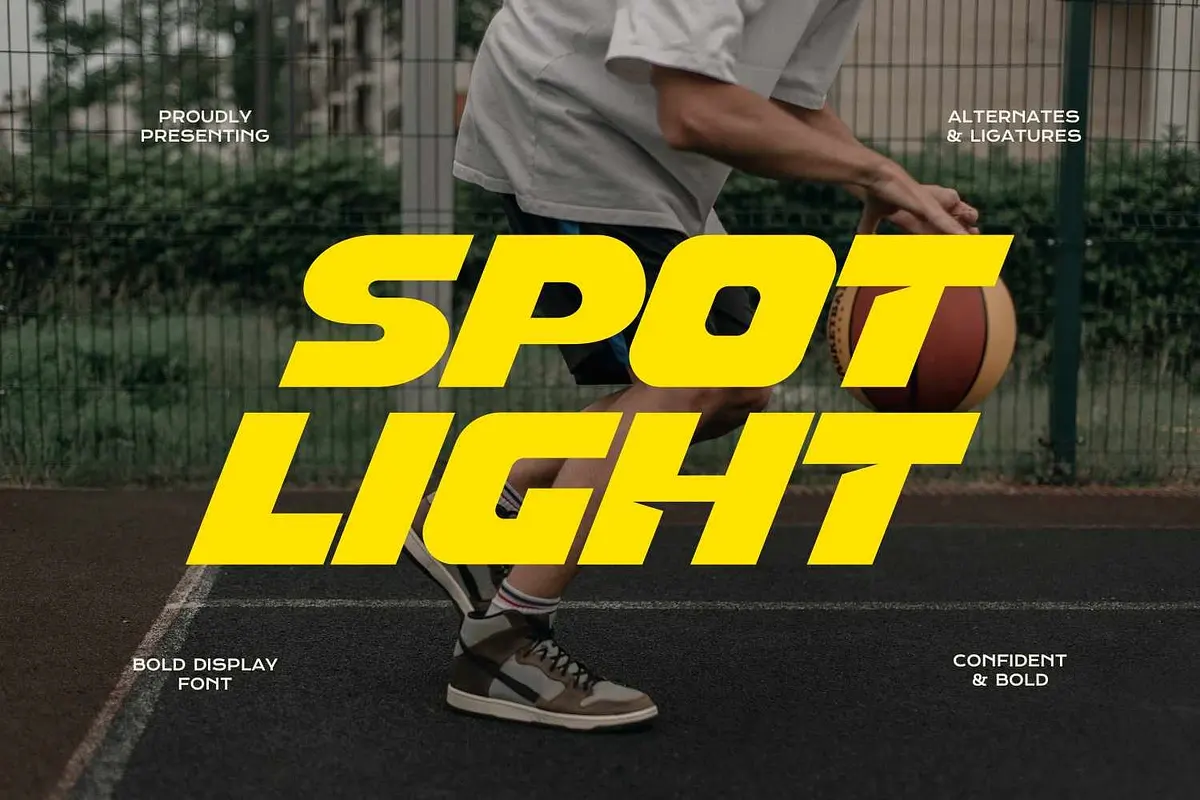
Spot Light Wide Modern Font Free Download
The Spot Light Wide Modern Font Free Download is a sleek and expansive typeface that commands attention with its wide letterforms and minimalist design. Perfect for headlines, posters, branding, tech-related projects, and modern editorial layouts, this font delivers bold visual impact while maintaining clean elegance.
With its futuristic vibe and extended spacing, Spot Light adds a contemporary edge to any design. It features uppercase letters, numbers, punctuation, and multilingual support—making it a versatile choice for designers who want a powerful, high-end look.